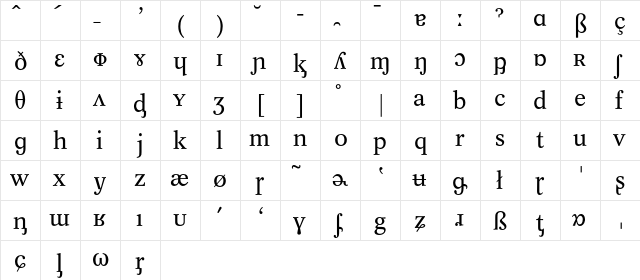
Concorde Phonetics BQ Regular
Design Context for Concorde Phonetics BQ Typeface
Concorde Phonetics BQ is a composed and adaptable typeface that performs quietly and consistently across a wide range of design contexts.